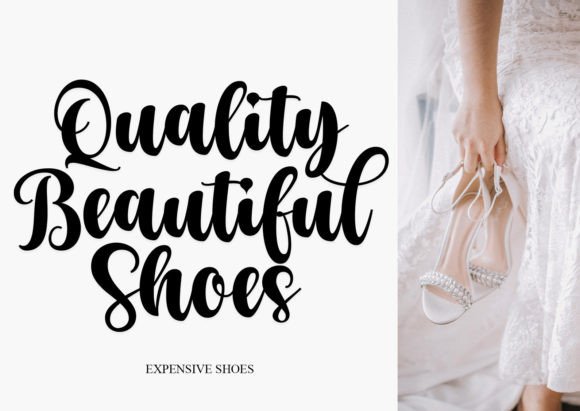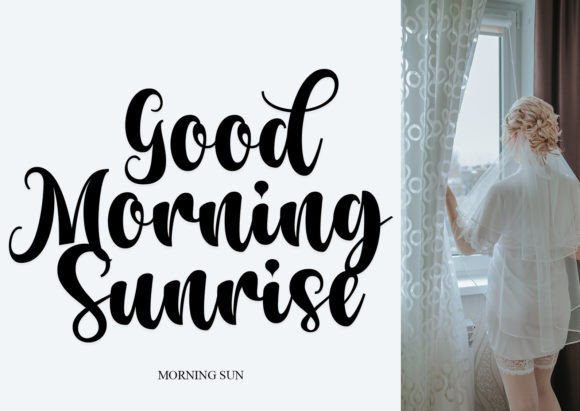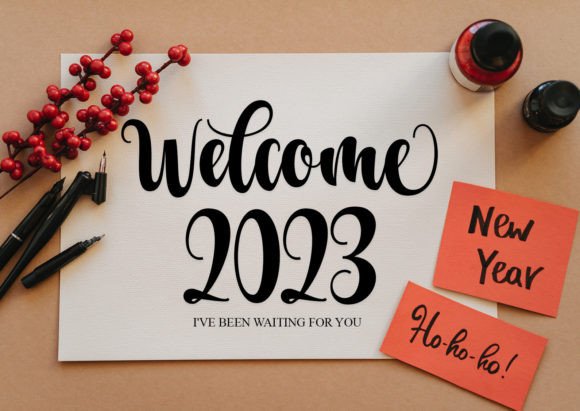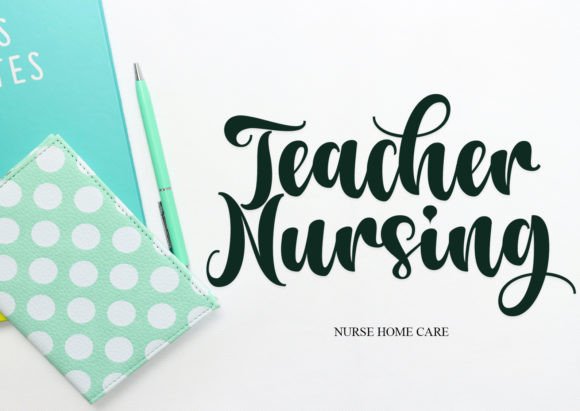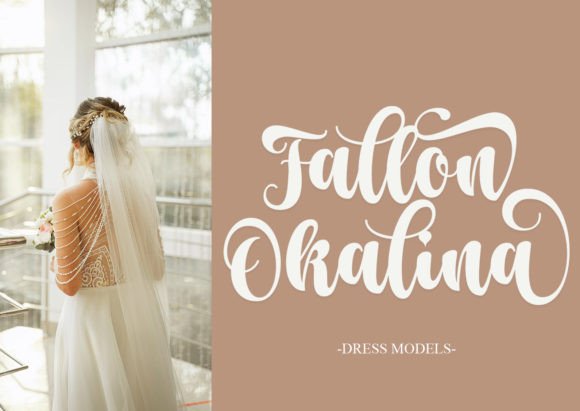
Introducing Amelia Blossom Font: Elevate Your Design with Delicate Handwritten Elegance
In the world of typography, fonts play a pivotal role in conveying messages, evoking emotions, and setting the tone for any design project. For designers and crafters seeking a unique and cool aesthetic, the Amelia Blossom Font is a treasure trove of creative possibilities. This delicate handwritten font is meticulously crafted to add a touch of elegance and charm to various design applications, including letters, invitations, food products, titles, and more.
The Essence of Amelia Blossom Font
Amelia Blossom Font is distinguished by its delicate and handwritten characteristics, making it an ideal choice for projects that demand a personal and bespoke feel. The font’s design is marked by its fluid strokes, gentle curves, and a soft, approachable vibe that instantly captivates the audience. Whether you’re working on a wedding invitation, a branding project, or a food blog, Amelia Blossom brings a level of sophistication and uniqueness that sets your work apart.
One of the standout features of Amelia Blossom Font is its versatility. This font is not limited to a specific genre or industry; rather, it can be seamlessly integrated into a wide array of design projects. Here are a few ways you can leverage the Amelia Blossom Font:
- Letters and Invitations: Add a personal touch to your correspondence with beautifully crafted letters and invitations that exude warmth and elegance.
- Food Products and Blogs: Elevate your culinary presentations with a font that speaks to the freshness and delicacy of your offerings.
- Titles and Headings: Use Amelia Blossom to create captivating titles and headings that draw the reader’s attention and add a decorative flair to your content.
- Branding and Packaging: Incorporate the font into your branding materials and product packaging to convey a sense of luxury, care, and attention to detail.
Why Choose Amelia Blossom Font?
Choosing Amelia Blossom Font for your design projects comes with several benefits:
- Unique Aesthetic: Stand out in a crowded design landscape with a font that offers a fresh and distinctive look.
- Ease of Use: Designed to be user-friendly, Amelia Blossom Font can be easily integrated into various design software and platforms.
- Customization: The font’s flexibility allows for a range of creative expressions, from subtle tweaks to more significant design overhauls.
- Emotional Connection: The delicate and personal nature of the font helps create an emotional connection with your audience, making your designs more relatable and engaging.
Tips for Maximizing Amelia Blossom Font
To get the most out of Amelia Blossom Font, consider the following design tips:
- Pair with Complementary Fonts: Combine Amelia Blossom with other fonts that complement its delicate style to create visual interest and hierarchy in your designs.
- Adjust Size and Color: Experiment with different sizes and colors to ensure the font aligns with your project’s overall aesthetic and messaging.
- Consider the Background: Ensure that the background of your design complements the font, allowing Amelia Blossom to stand out while maintaining readability.
Amelia Blossom Font is a beautiful addition to any designer’s toolkit, offering a unique blend of elegance, versatility, and charm. Whether you’re crafting a bespoke invitation, designing a brand’s visual identity, or simply looking for a font that adds a personal touch to your projects, Amelia Blossom is sure to exceed your expectations. With its delicate handwritten aesthetic and wide range of applications, this font is poised to become a favorite among designers and crafters seeking to create cool and unique designs.
Embrace the beauty of Amelia Blossom Font in your next project and discover the difference that a carefully crafted, handwritten font can make in elevating your designs to new heights of creativity and sophistication.